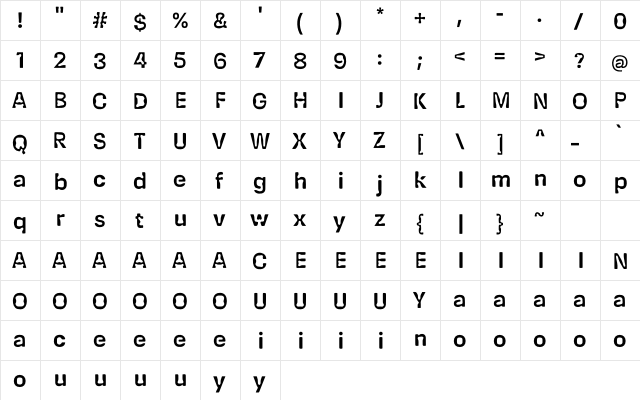
RD - Coarse Regular
Design Context for RD - Coarse Typeface
RD - Coarse takes a measured approach to typography — its balanced proportions and neutral character make it a reliable workhorse for both digital and print work.